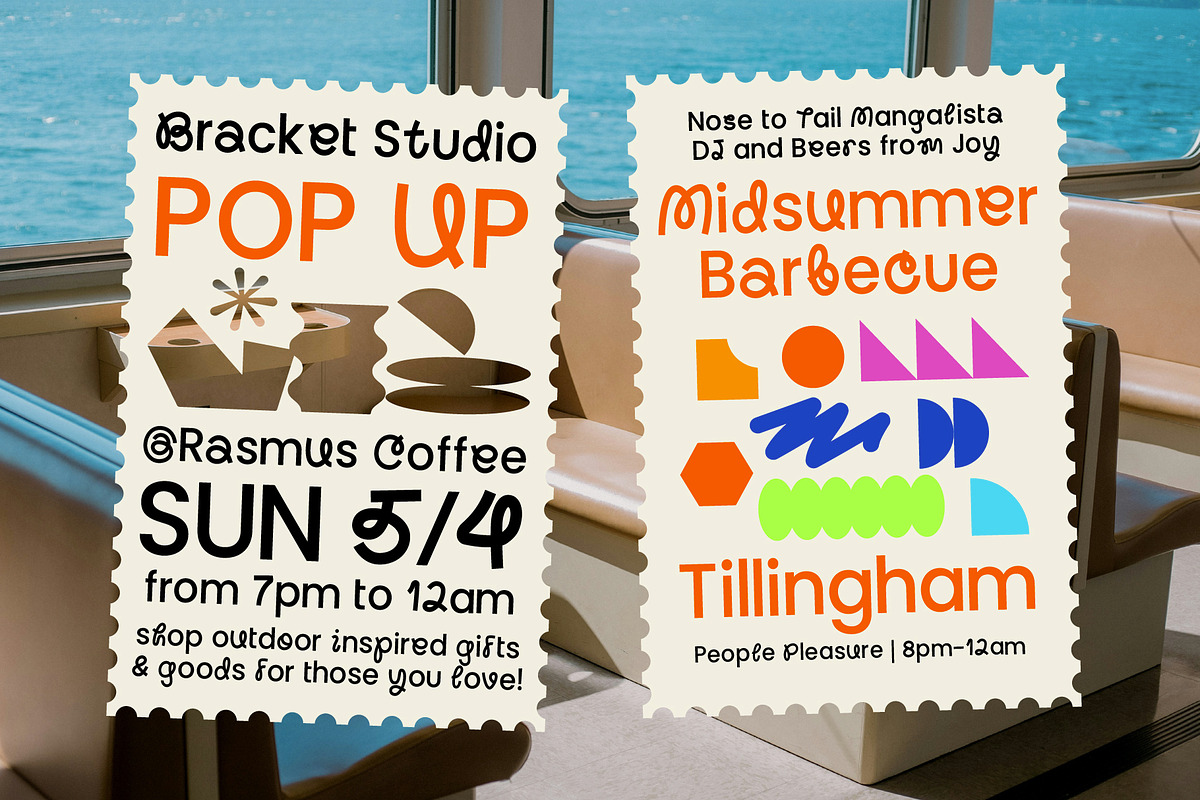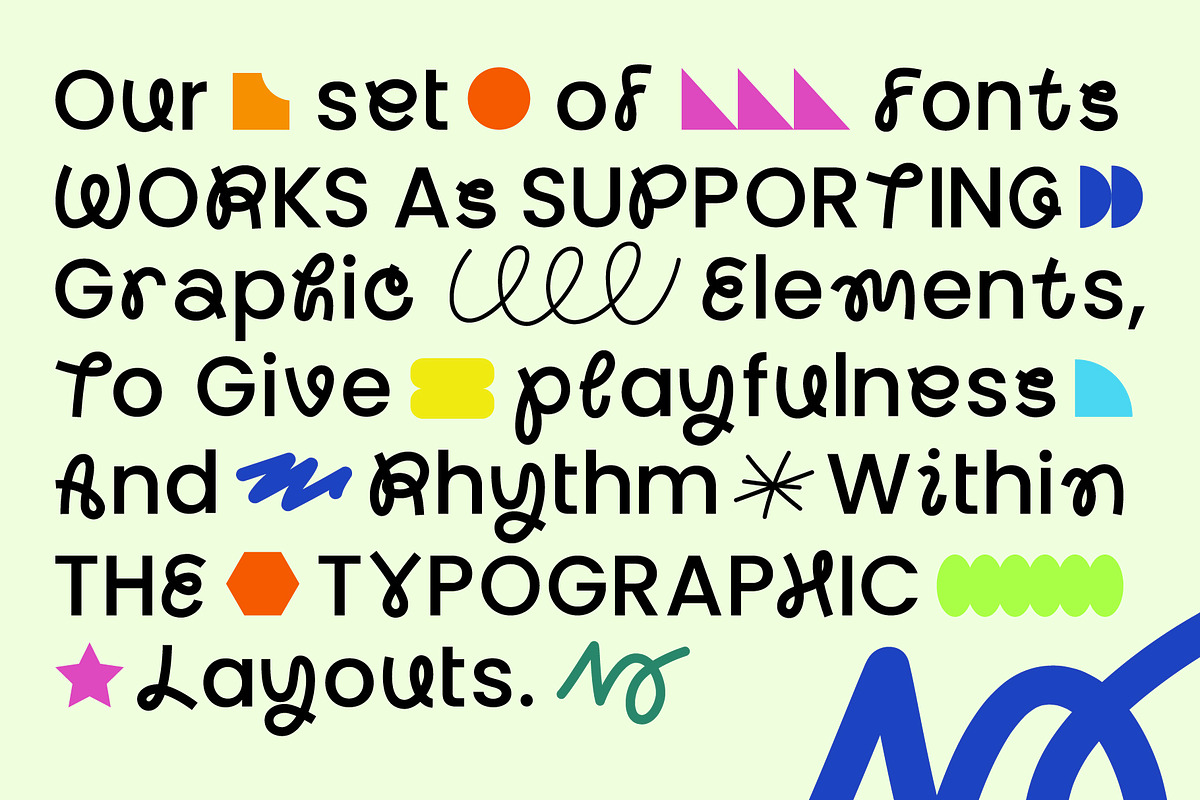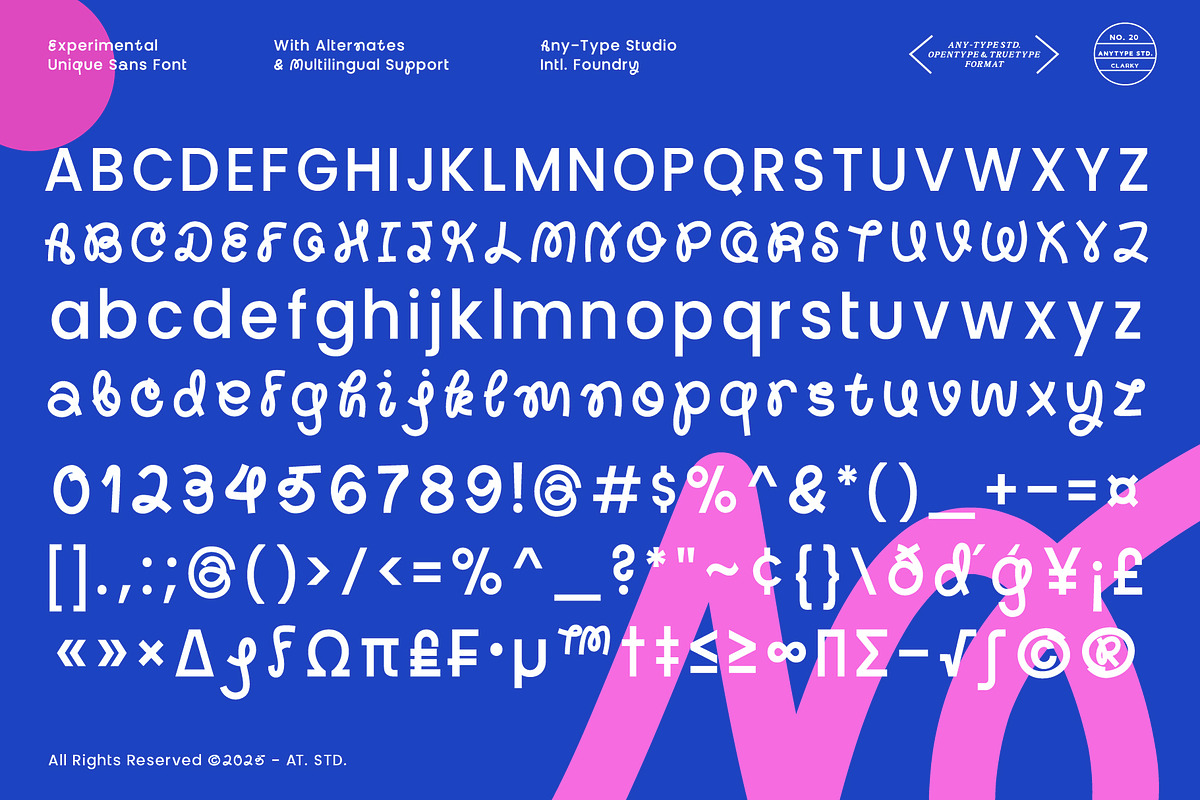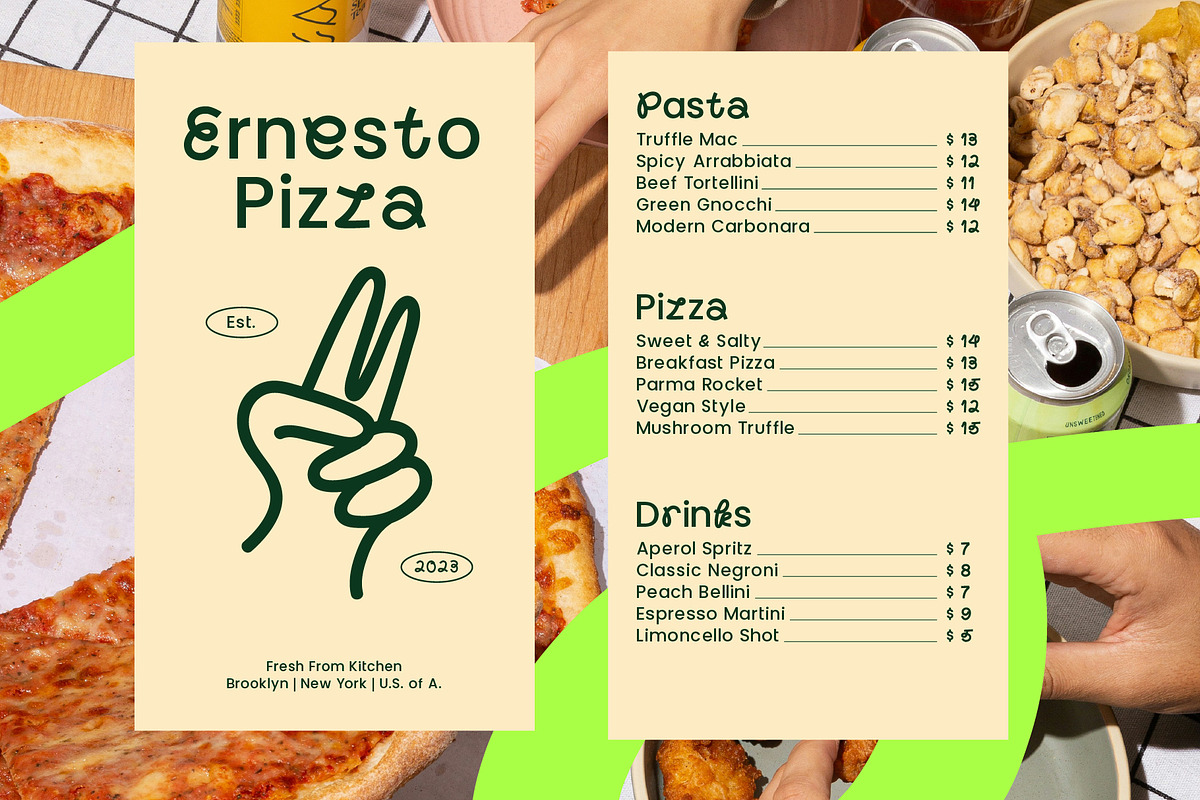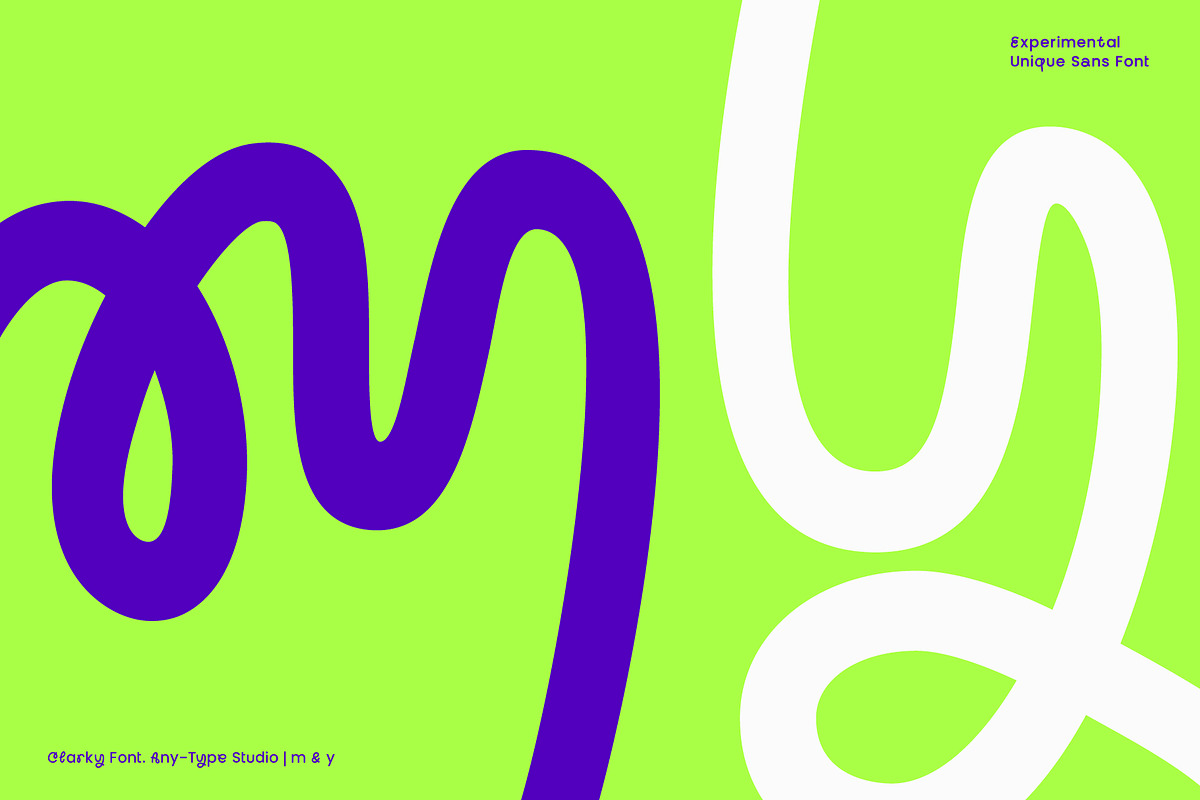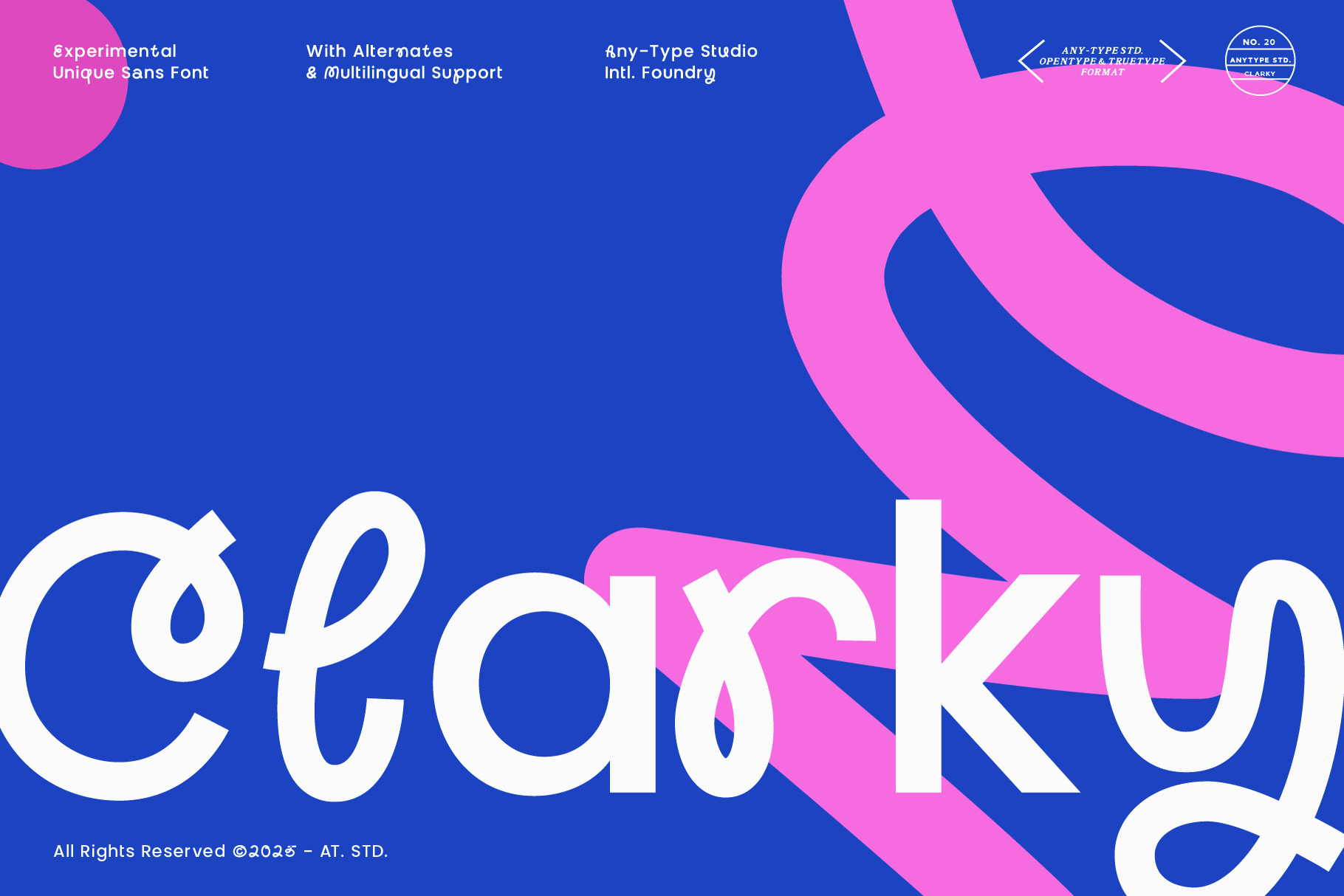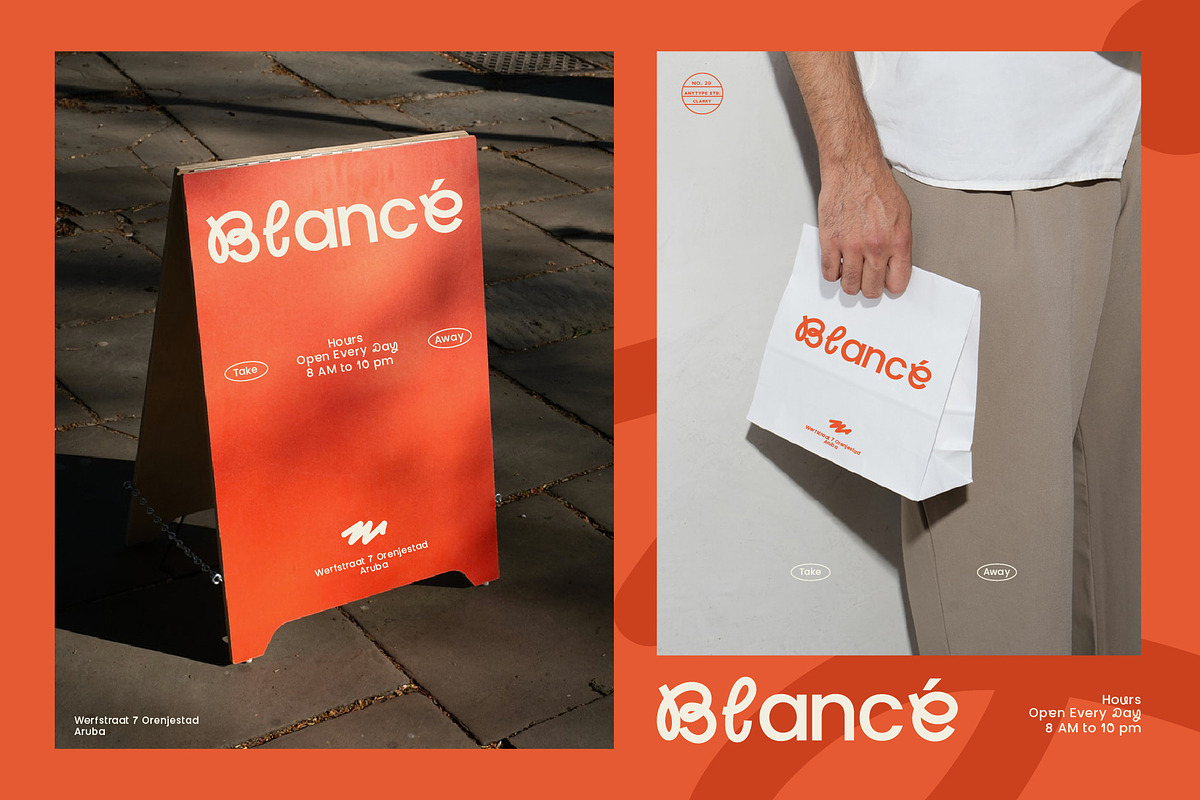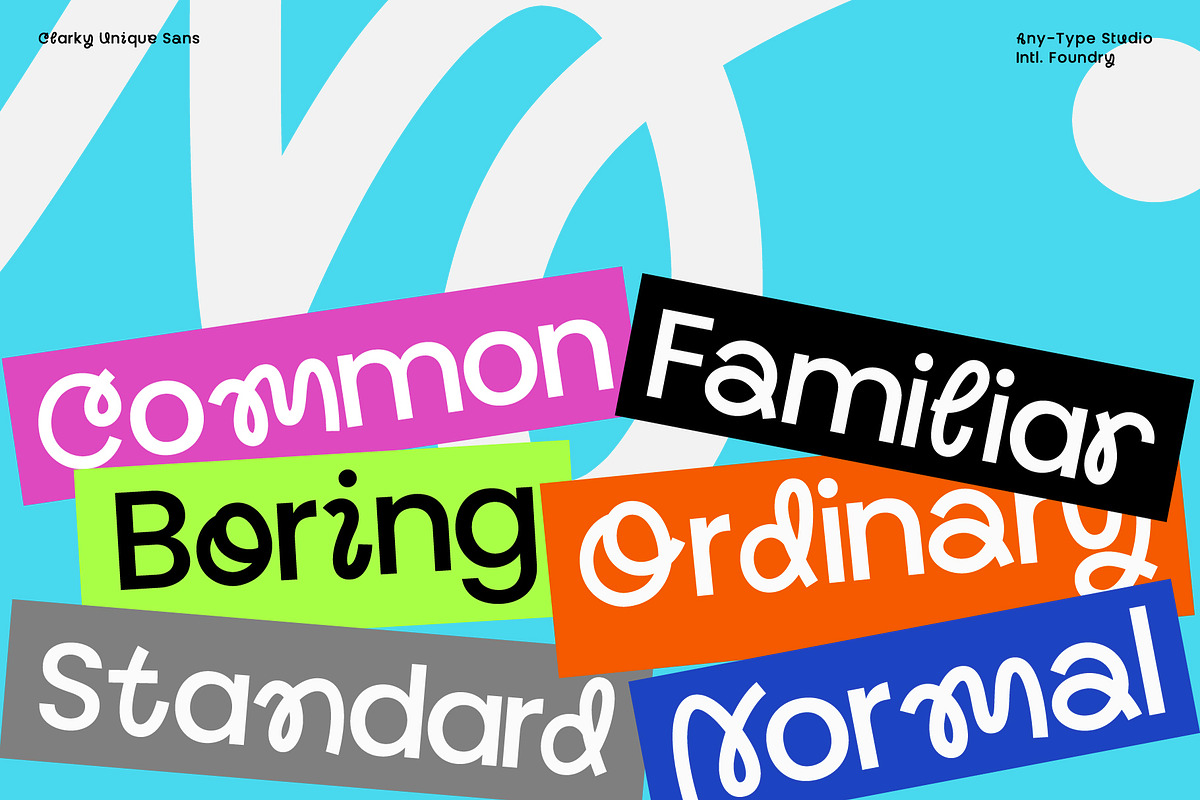
Clarky Playful Font
Clarky Font
Clarky is a modern experimental sans-serif font designed to break the monotony of standard typefaces. Its balance of geometric structure and playful curves gives it a unique personality—professional yet creative, clean yet expressive. Every character in Clarky has been carefully crafted to deliver visual impact without sacrificing readability. Its quirky strokes, alternative glyphs, and unexpected details make it perfect for designers who want their work to stand out.
- Complete Character Set – A–Z uppercase & lowercase, numbers, punctuation, and special symbols.
- Stylistic Alternates – Switch between variations for a more dynamic look.
- Multilingual Support – Includes extended Latin characters to support multiple languages.
- Versatile Applications – Works beautifully in branding, packaging, posters, digital ads, magazine layouts, merchandise, and logos.
- Modern Yet Playful – A fresh aesthetic that adds character to professional designs while staying legible.
Why You’ll Love Clarky: Clarky is not just a typeface; it’s a design tool that empowers creativity. If you’re tired of overused sans fonts and looking for something bold, stylish, and experimental, Clarky will give your project the edge it deserves. Whether you’re designing for print or digital, this font guarantees instant attention and leaves a lasting impression.